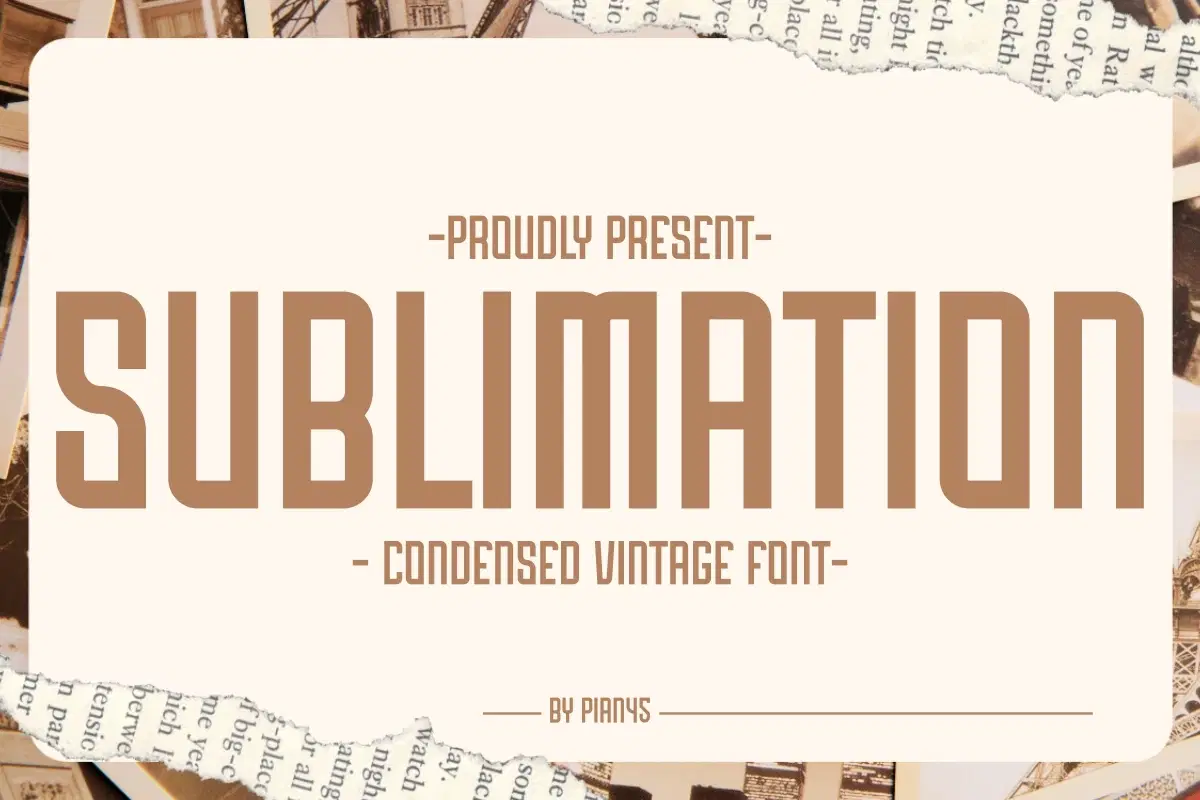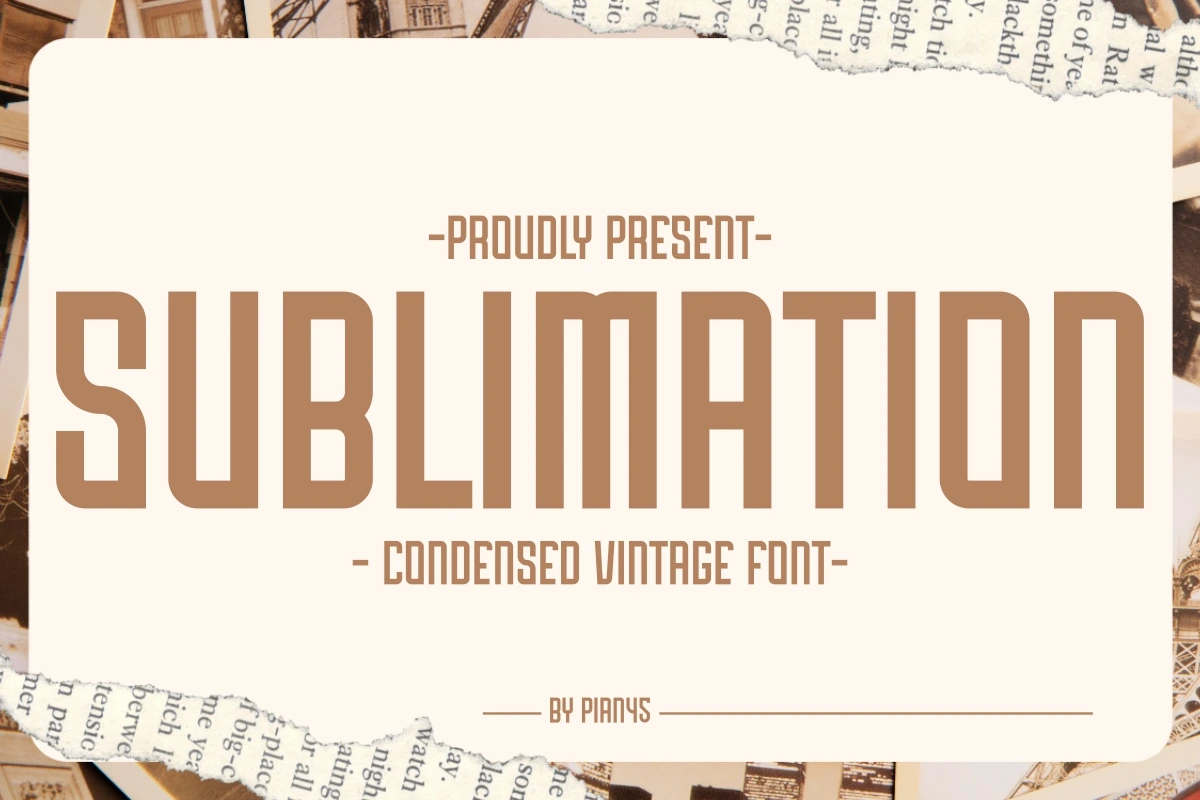
Introducing Sublimation, the perfect Condensed Vintage Font to elevate your designs! 🎨 This bold and tall display typeface delivers a strong, nostalgic statement, capturing the essence of retro signage and classic Americana. It's your go-to for high-impact logo design, apparel, print-on-demand (POD), and all your sublimation projects. Get that authentic vintage style with a modern twist!